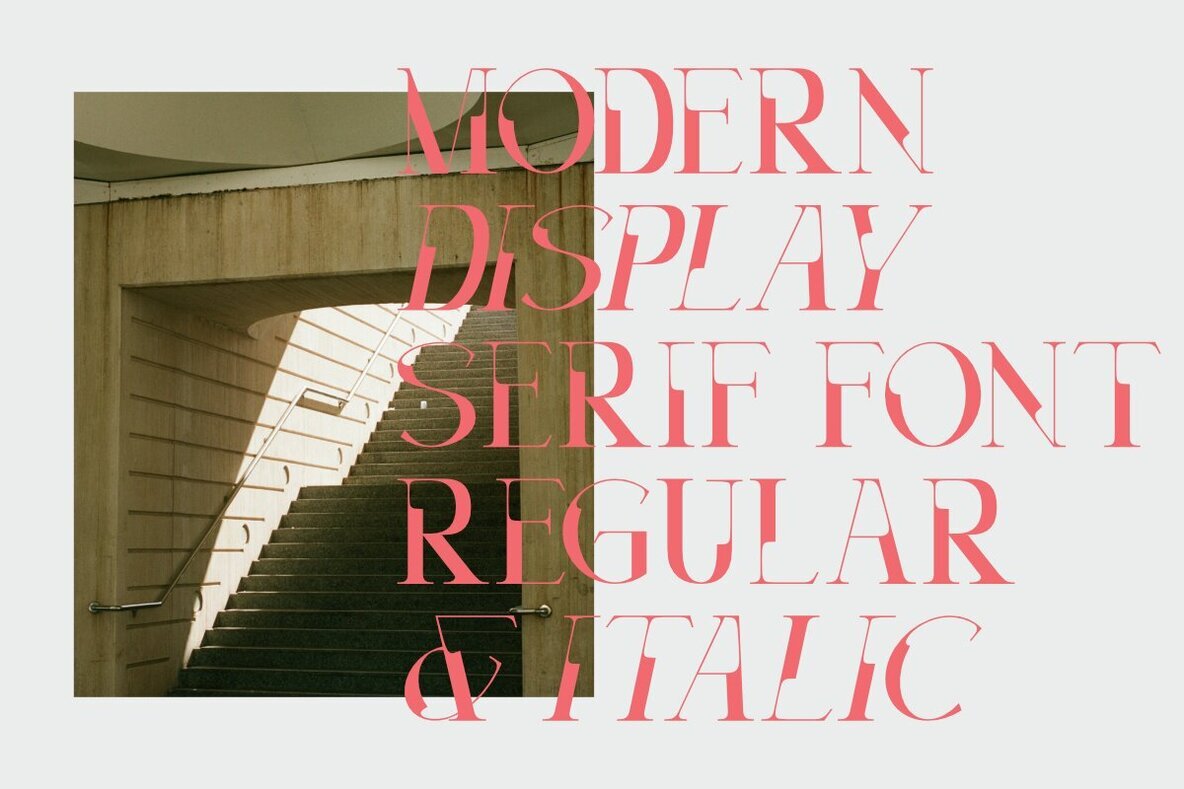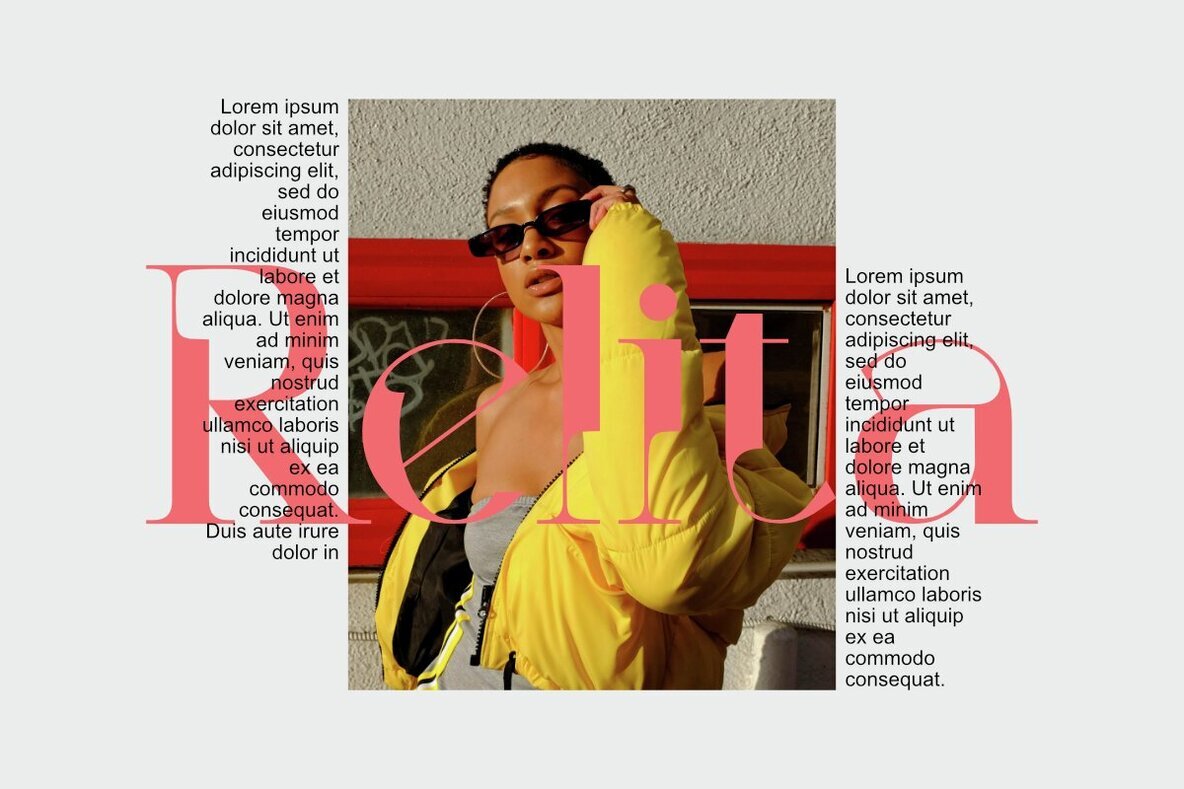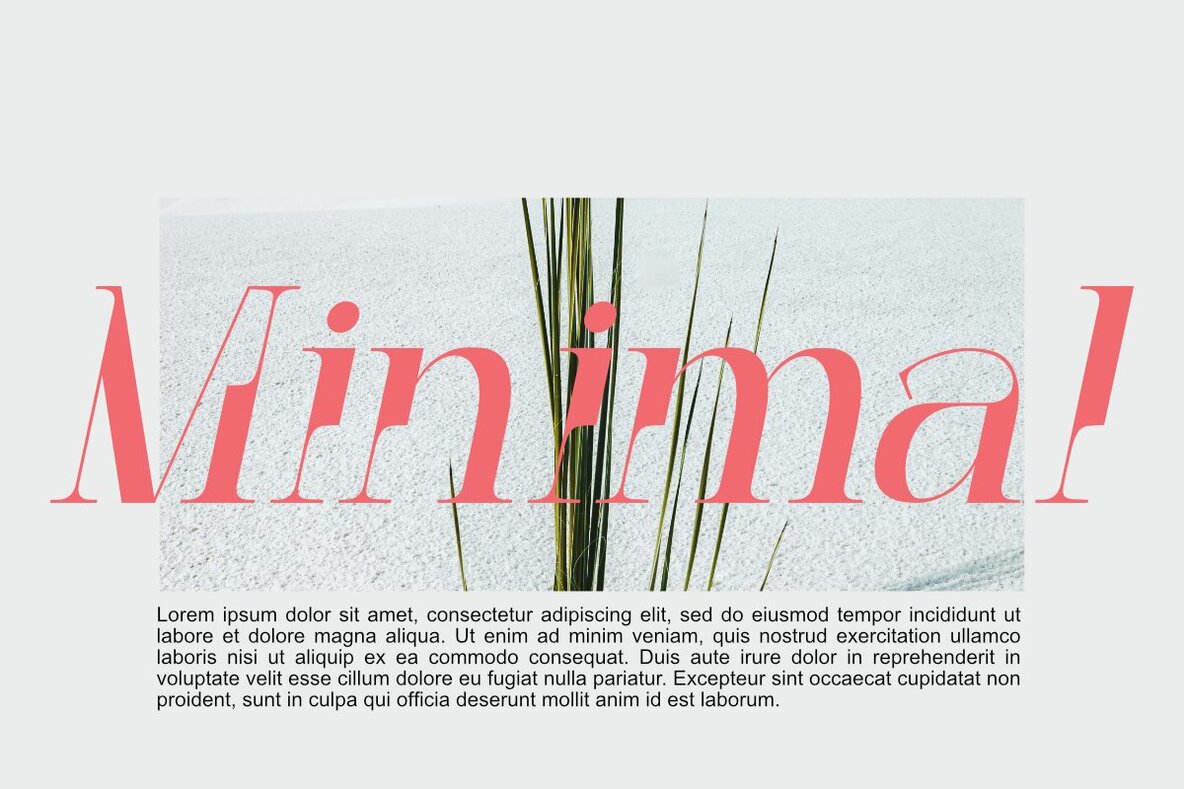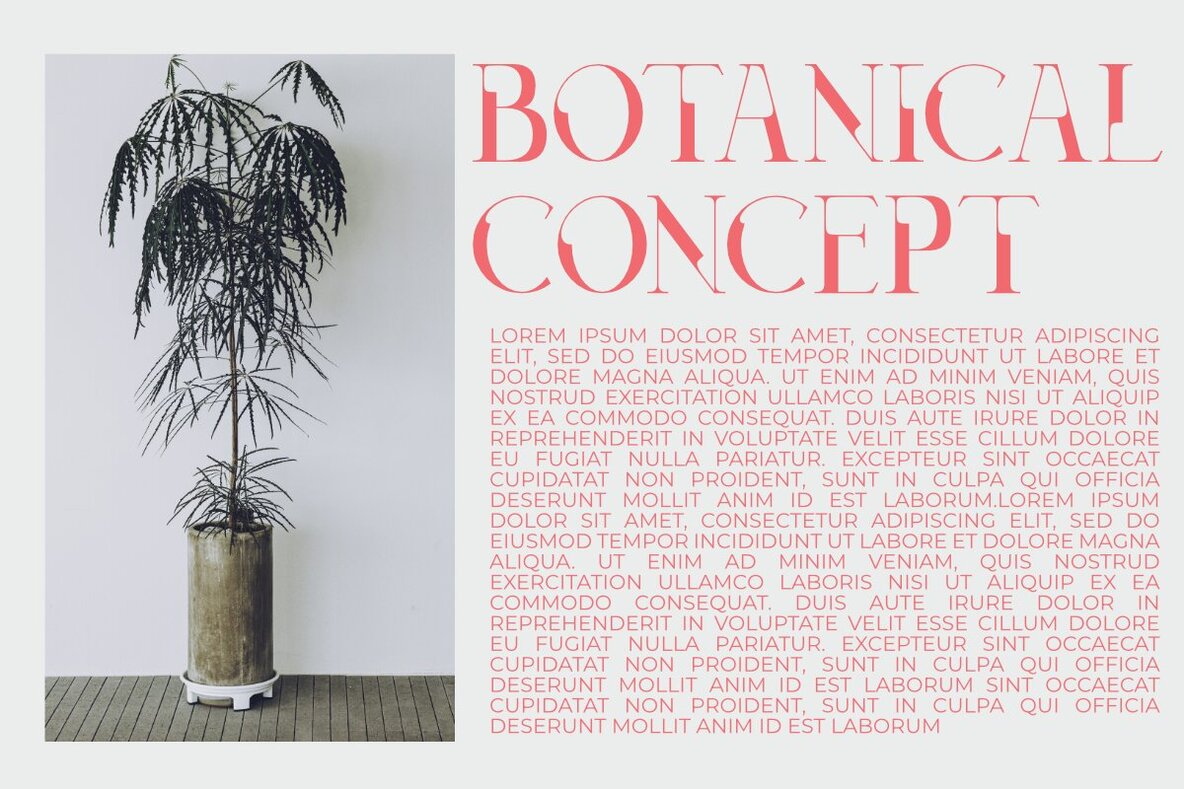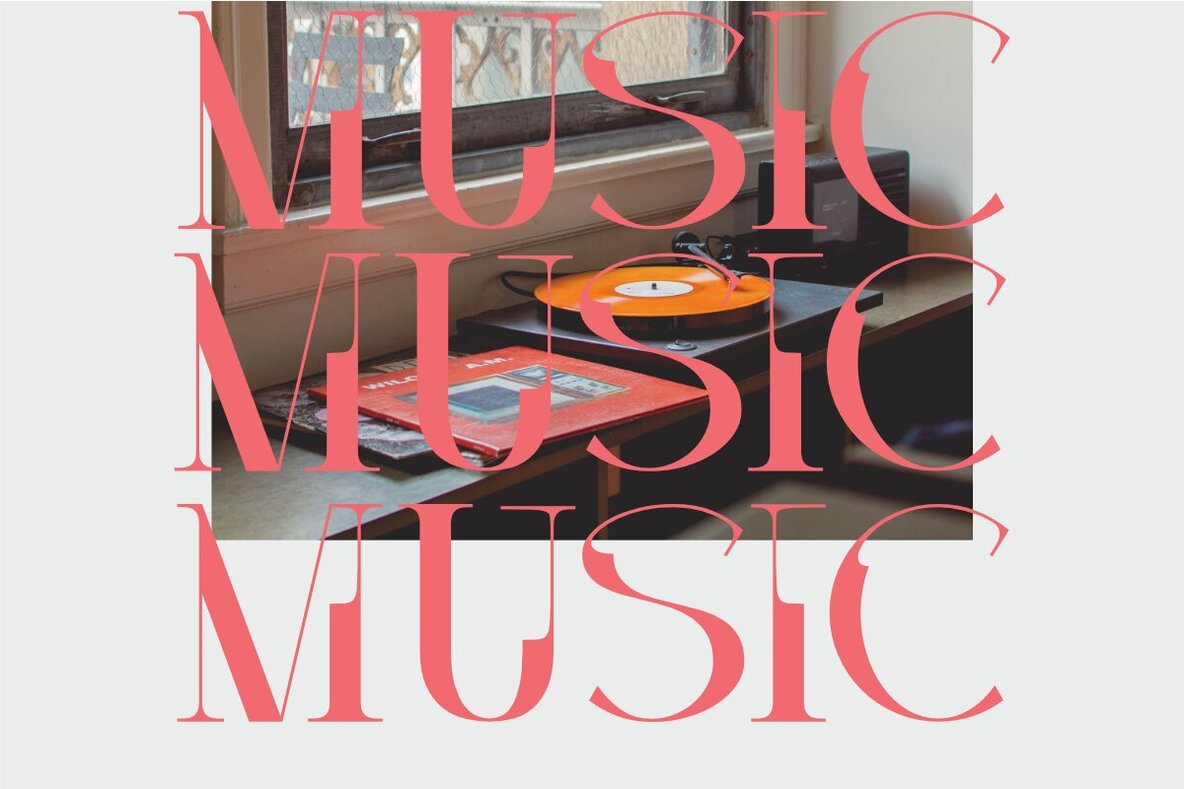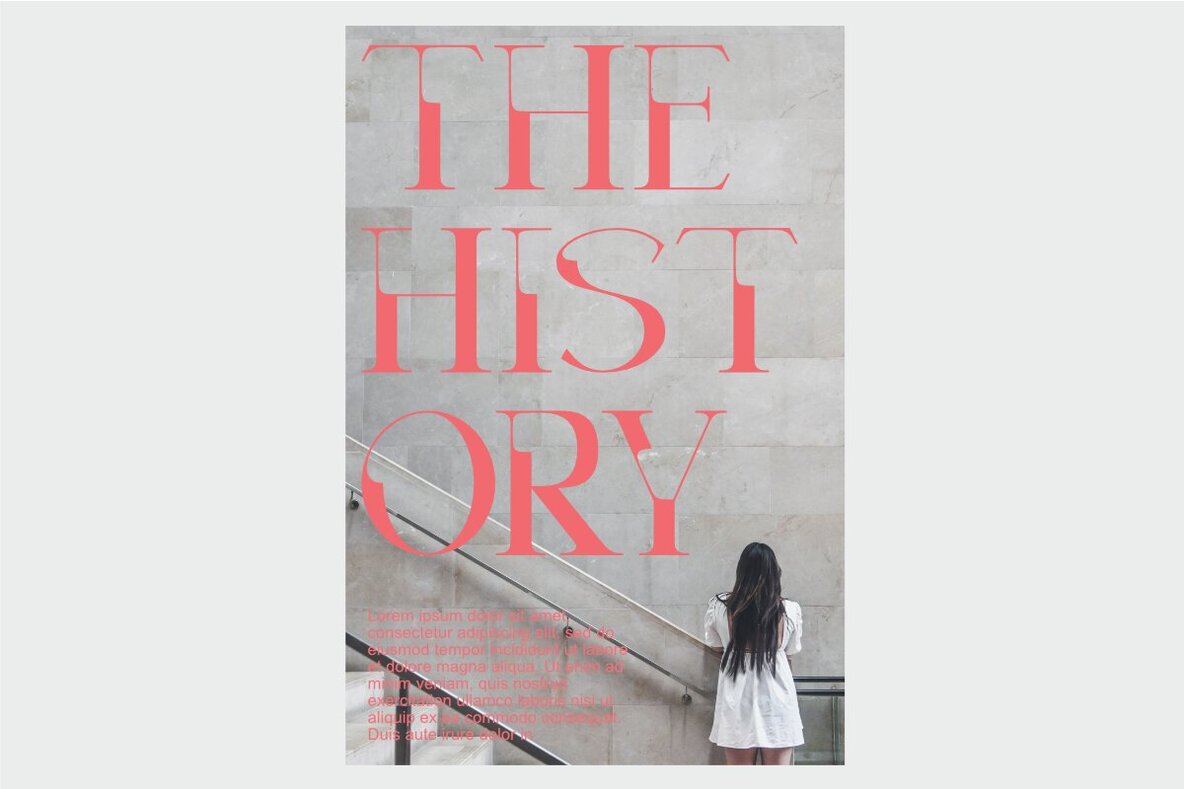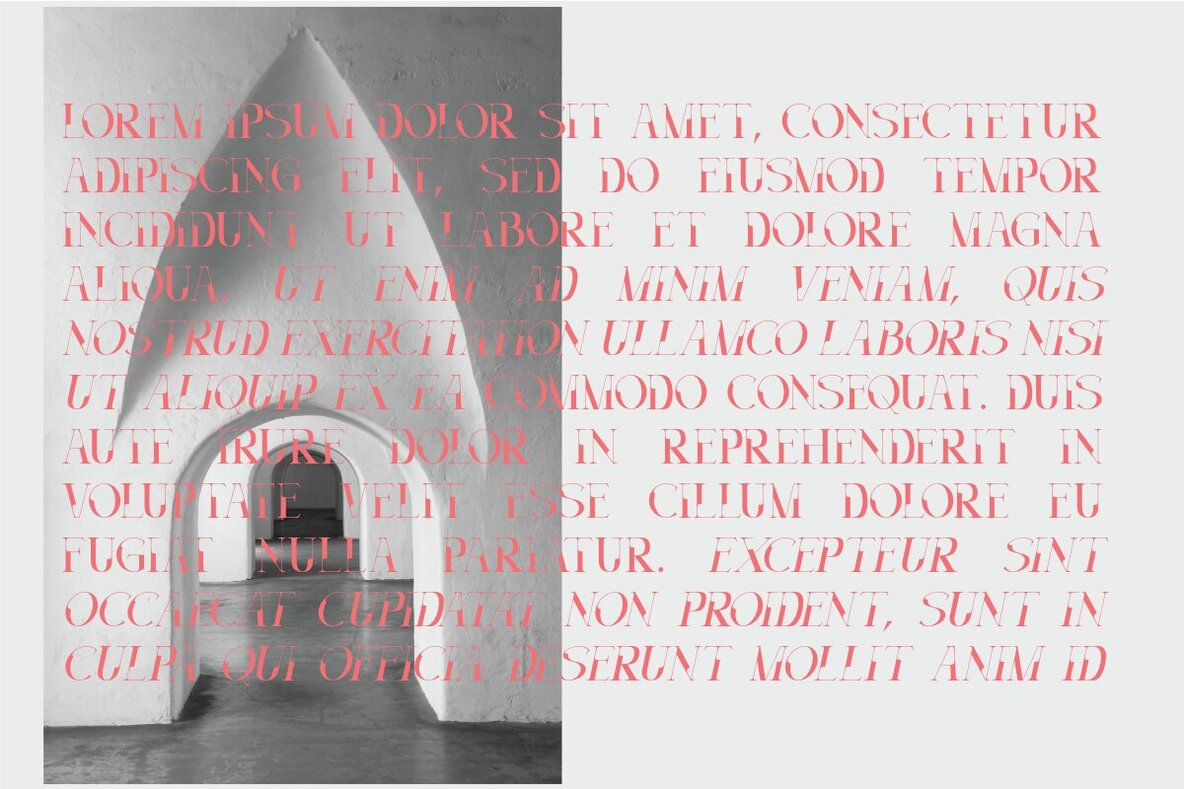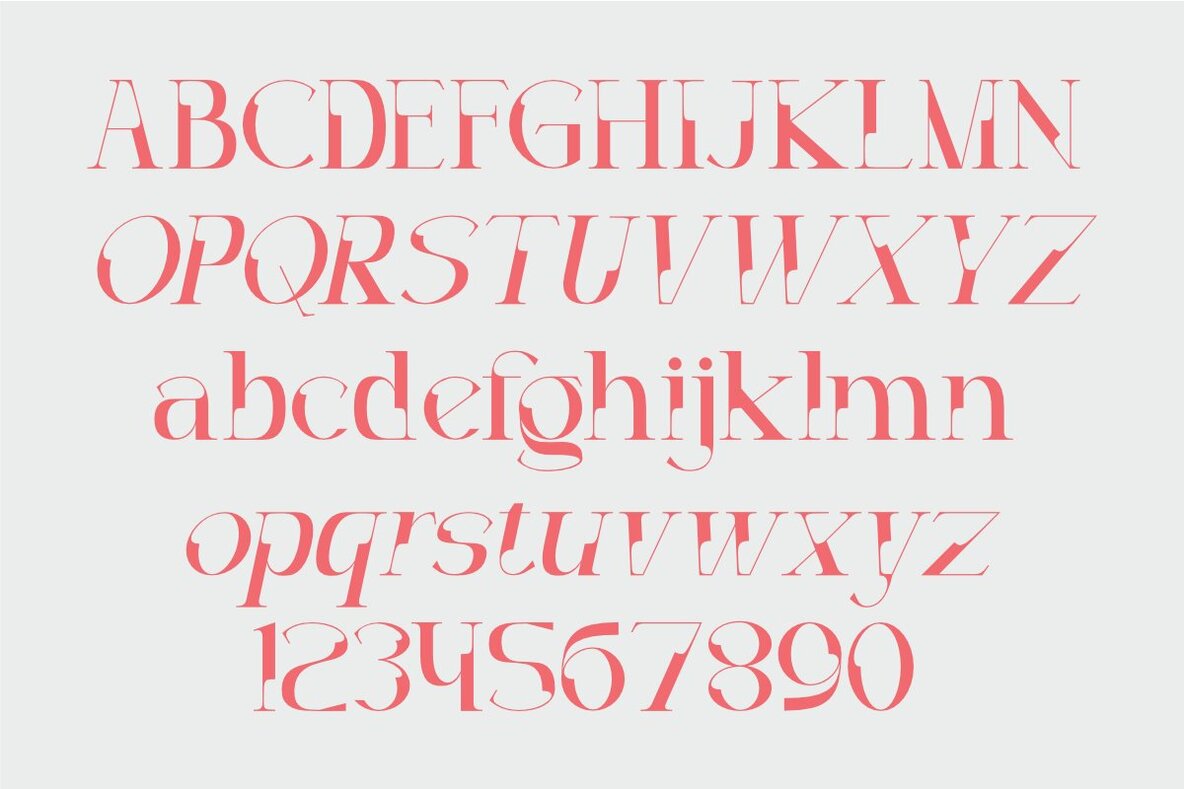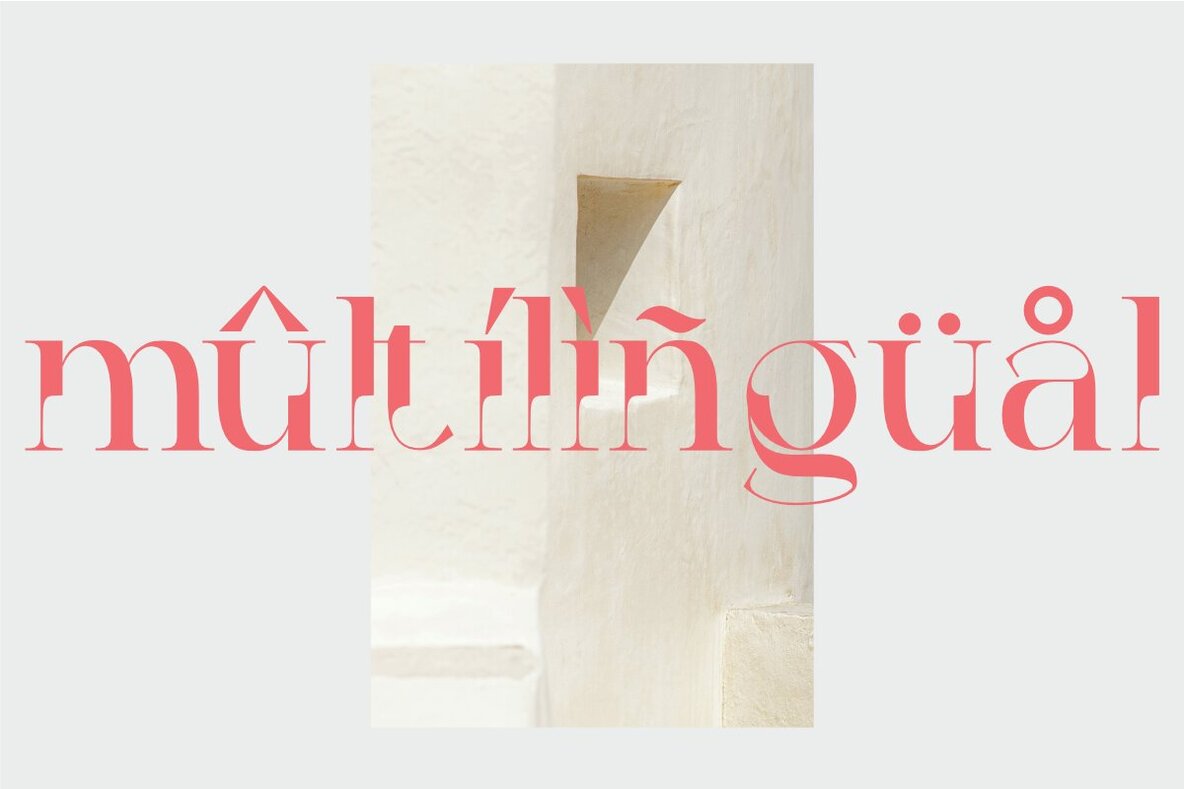
Decoslice 1
DecoSlice is a modern typeface that blends Art Deco aesthetics with sharp geometric cuts. Featuring unique letterforms and distinctive sliced details, DecoSlice offers an elegant fusion of retro and futuristic elements.
Perfect for designs that demand a bold and avant-garde touch, this font exudes strong and dynamic character, making it ideal for branding, posters, and other creative projects that seek to stand out with a striking style.